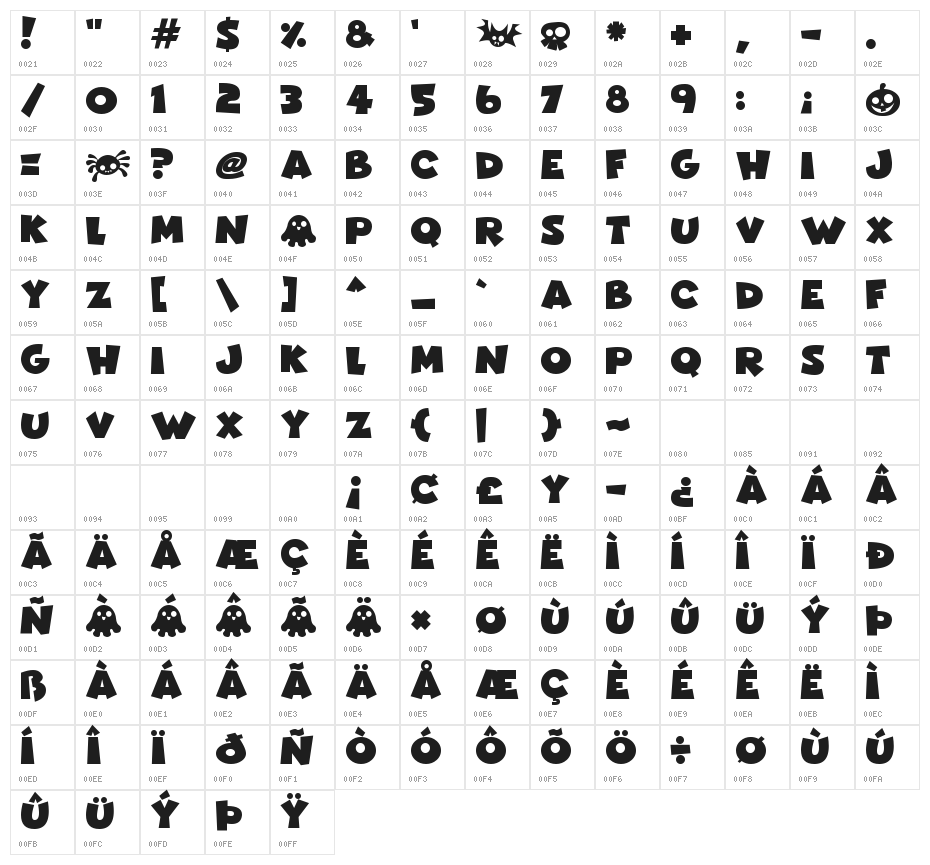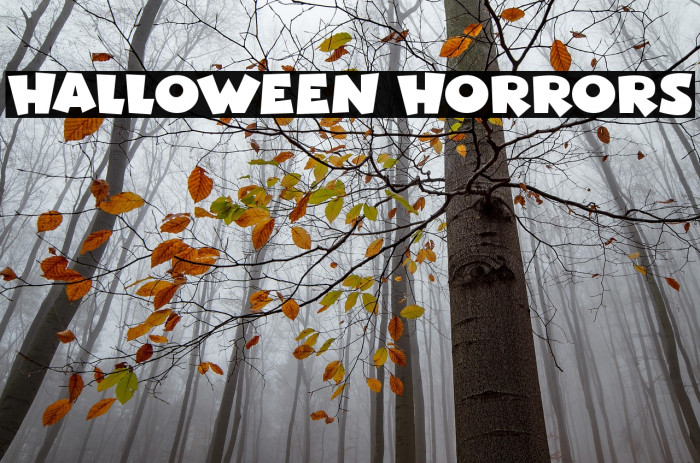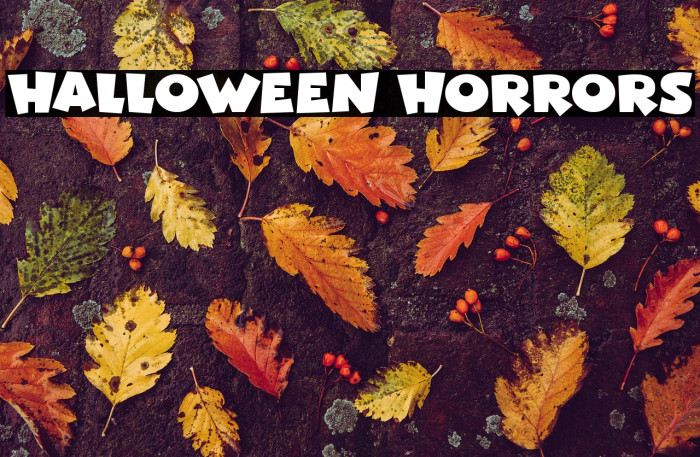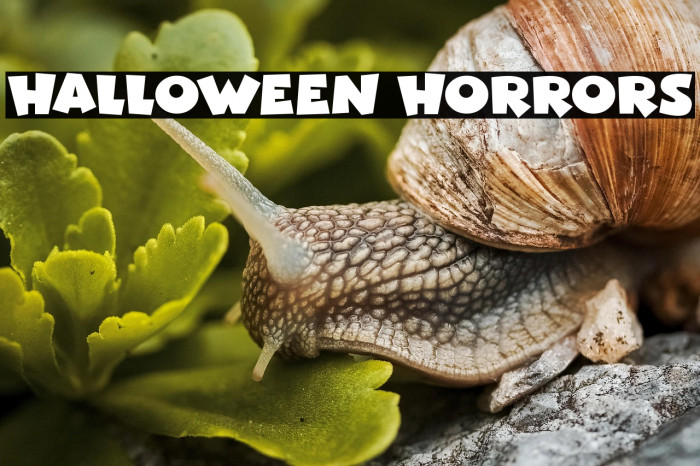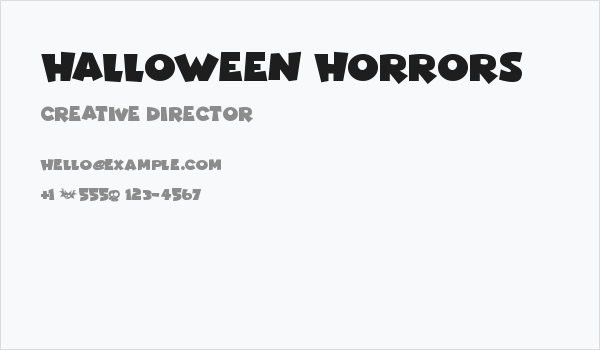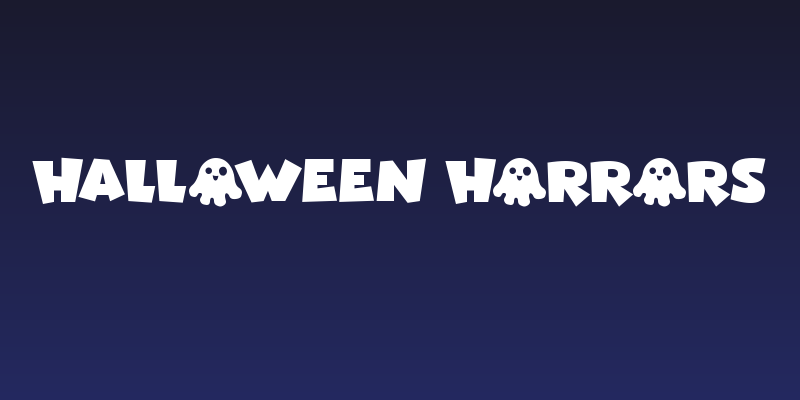
Halloween Horrors Font
Halloween Horrors Description
This font exudes a playful yet spooky vibe, perfect for Halloween-themed projects. The letters are bold and irregular, with quirky angles and exaggerated curves that give them a whimsical, cartoonish appearance. The inclusion of ghostly and bat-like elements within some characters adds to its eerie charm. The numbers and special characters maintain the same playful style, ensuring consistency across all text elements. This font is designed to grab attention and evoke a sense of fun and fright, making it ideal for festive occasions.
| Use Case | Headlines, Posters, Invitations |
| Proposed Projects | Ideal for Halloween party invitations, themed posters, children's books, and festive decorations. |